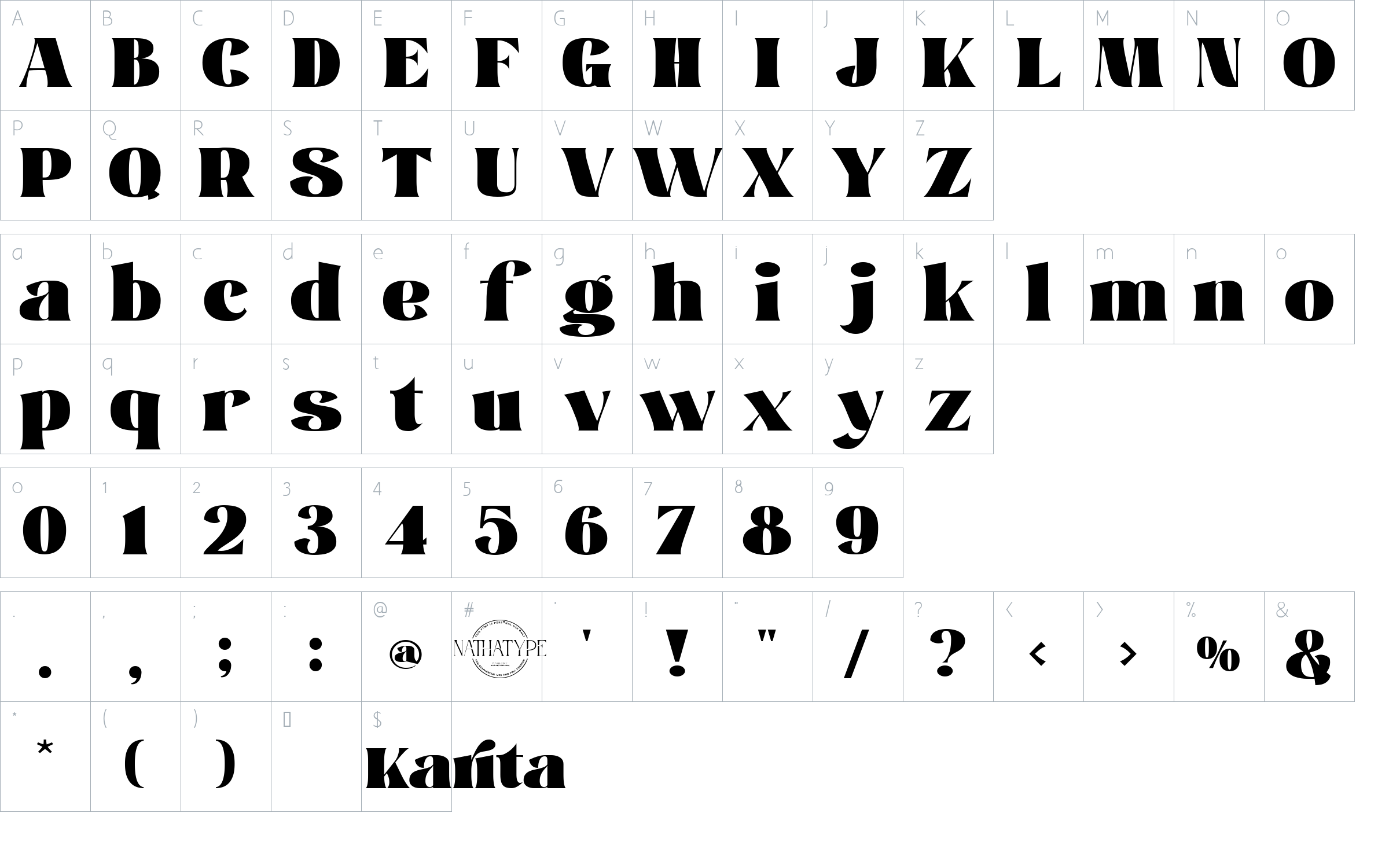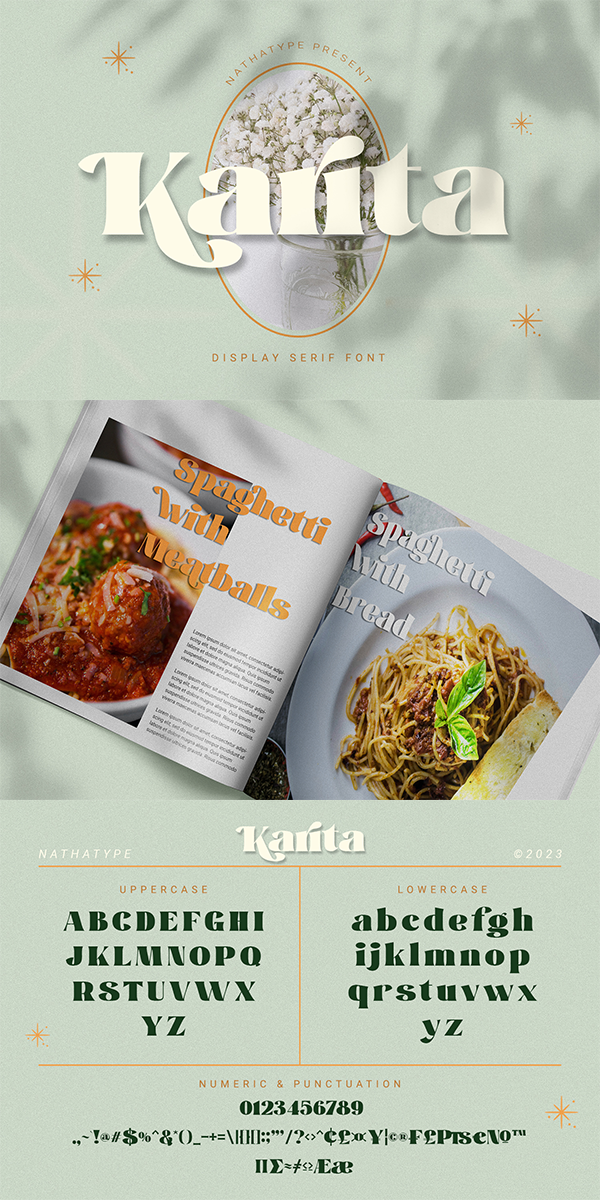
Karita Font
About Karita
Karita is a classic, elegant, professional display serif font to increase the product and brand values promoted. This font looks more prominent than the others and shows strong, yet elegant impressions to attract customers. Continuity elements on every little scratch of the letters’ edges lead your eyes to follow one letter to another in line with serif font characters. Besides, this font type has thick lines and strong contrasts to attract customers and to show firm impressions. For a legibility reason, you can use this font for big text sizes. You can enjoy the available features here as well.
Karita fits best for various design projects, such as brandings, posters, banners, headings, magazine covers, quotes, invitations, name cards, printed products, merchandise, social media, etc. Find out more ways to use this font by taking a look at the font preview.